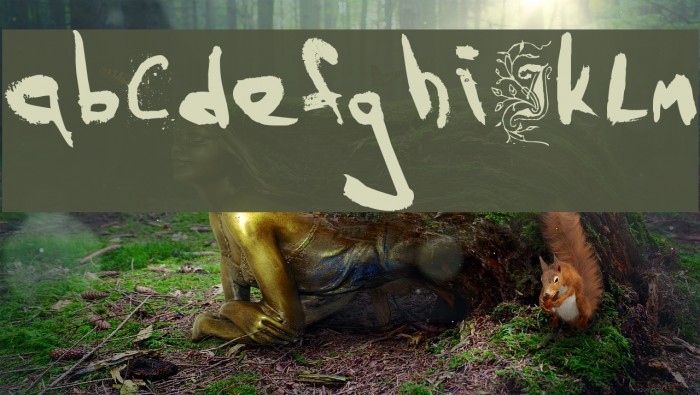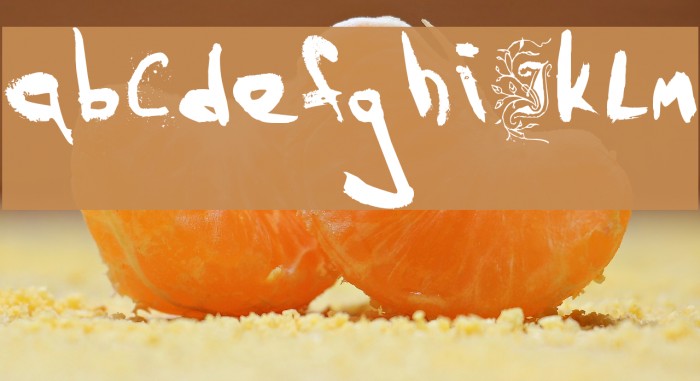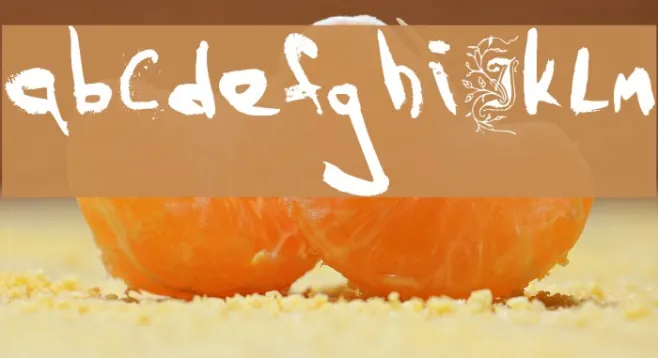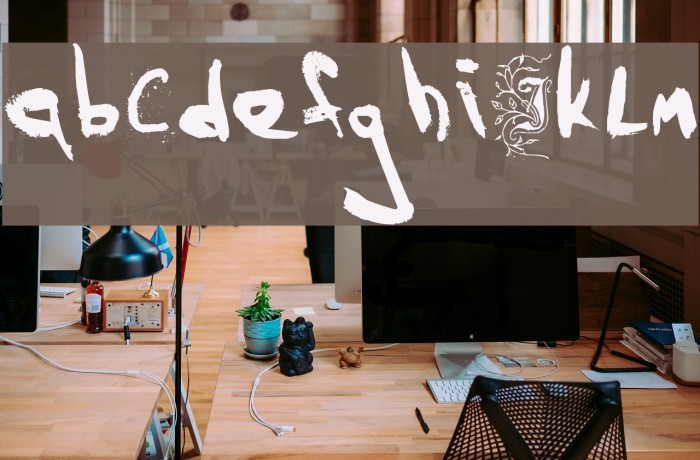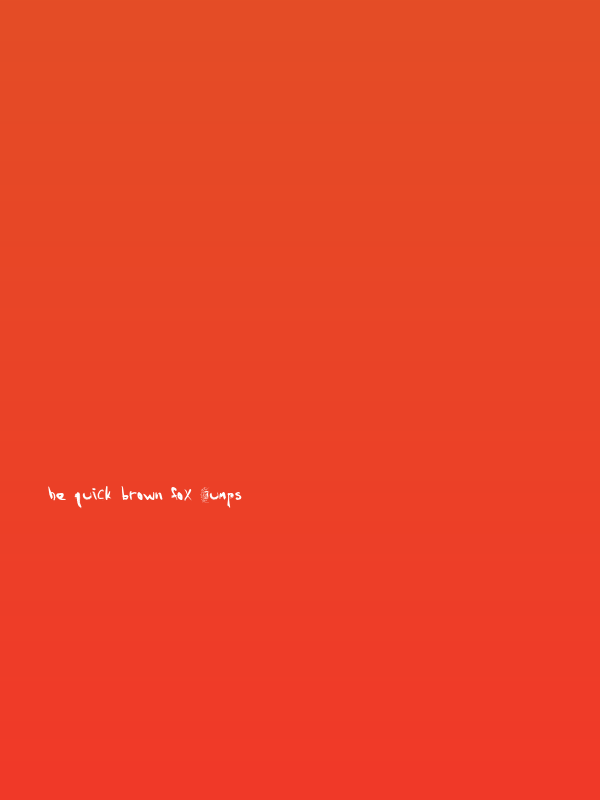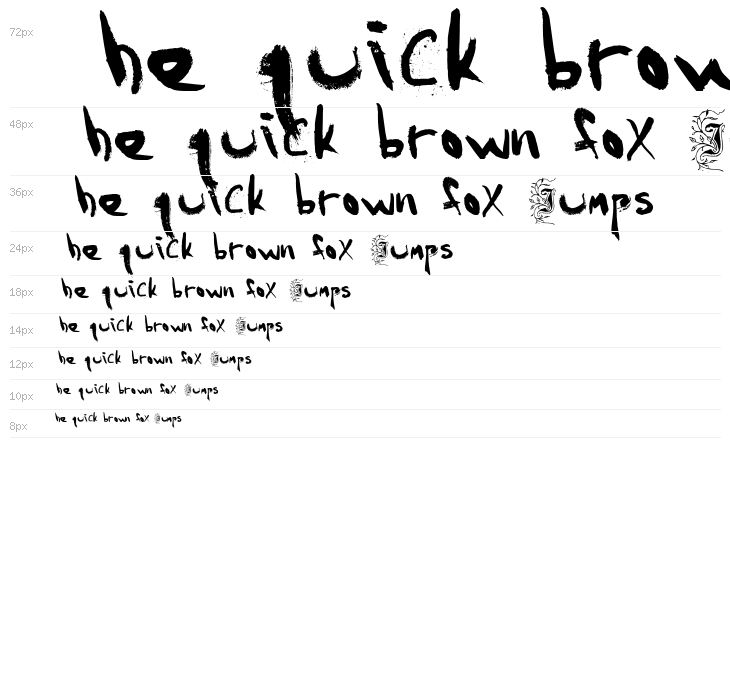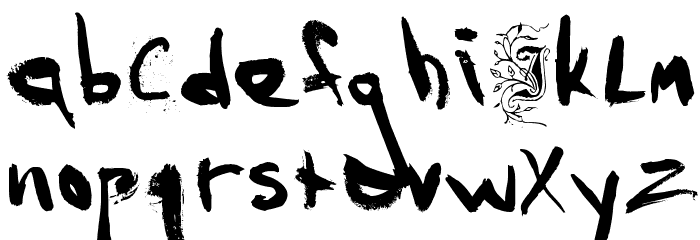
Wendus Font
Wendus Description
This font features a dynamic and expressive style, characterized by its brush-like strokes and irregular forms. Each letter has a unique, hand-drawn appearance, giving it a raw and artistic feel. The uppercase letters are particularly bold and striking, with some incorporating decorative elements that add an extra layer of visual interest. The lowercase letters maintain a consistent flow, enhancing the font's organic and spontaneous look. The overall design is both edgy and artistic, making it suitable for projects that require a bold statement.
| Overall Style | Artistic, Edgy |
| Proposed Projects | Ideal for artistic projects, album covers, posters, and branding that seeks a bold, creative impact. |